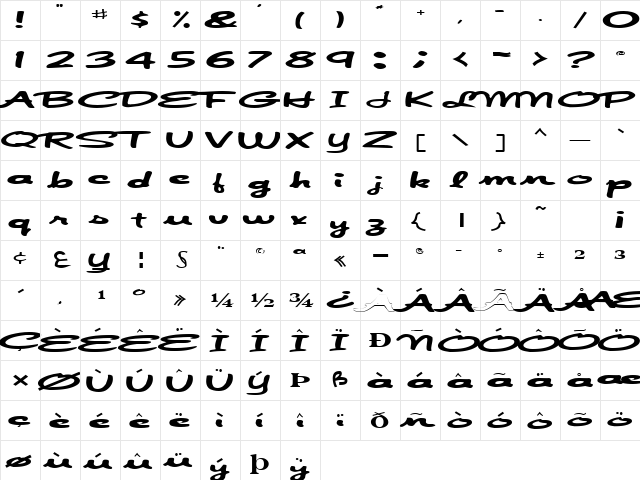
JapanScript911 Regular
Design Context for JapanScript911 Typeface
JapanScript911 flows with the natural rhythm of handwritten lettering, making it ideal for designs that call for warmth and personal expression.
Font Pairing: Combine JapanScript911 with a simple geometric sans for maximum contrast — the tension between flowing curves and clean structure is a classic typographic pairing.
Pro Tip: Pair JapanScript911 with a clean sans-serif for supporting text. The contrast between fluid script and geometric structure creates an elegant typographic hierarchy.